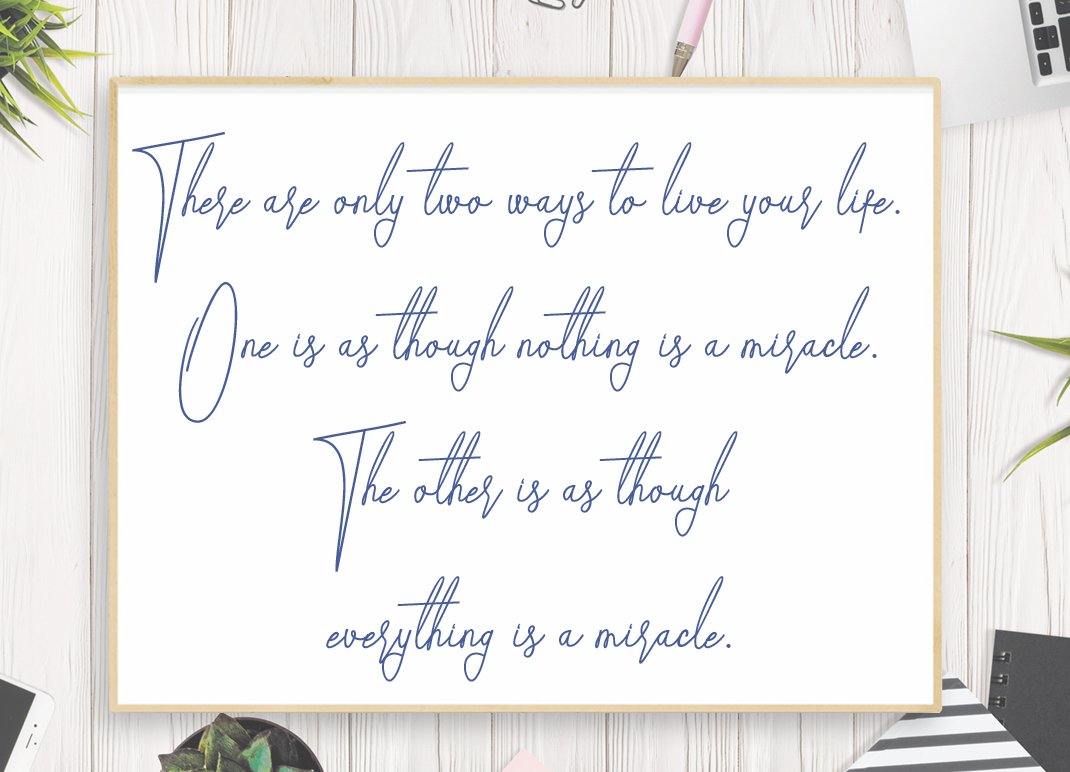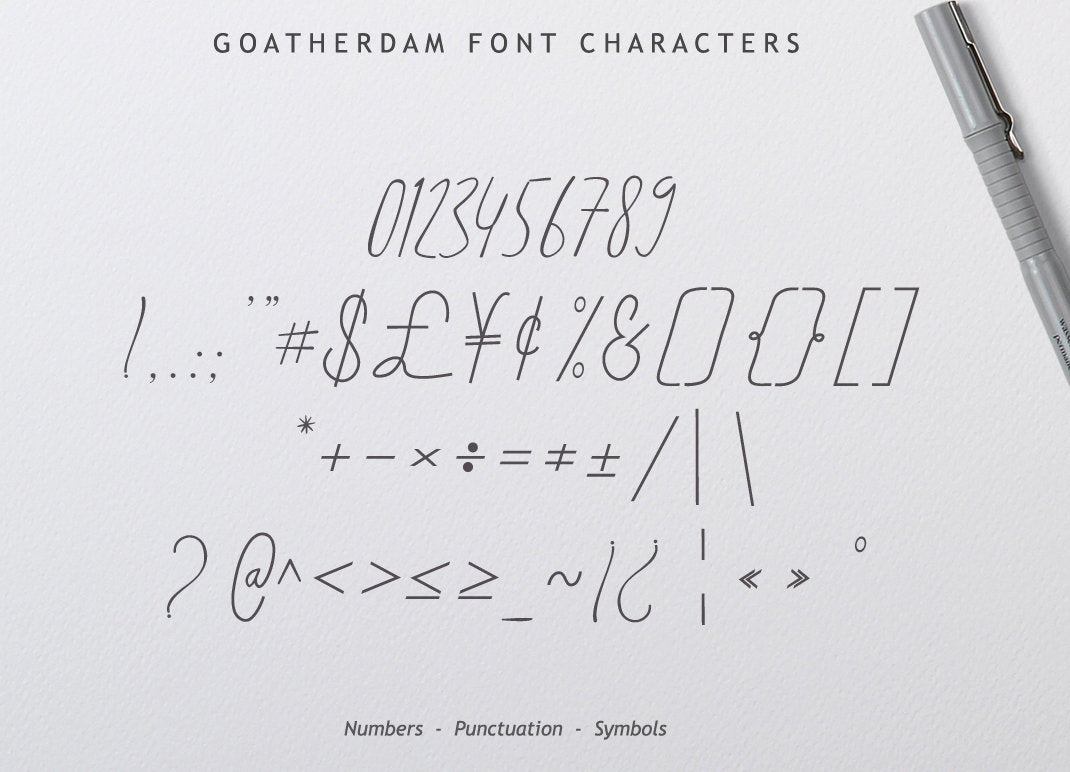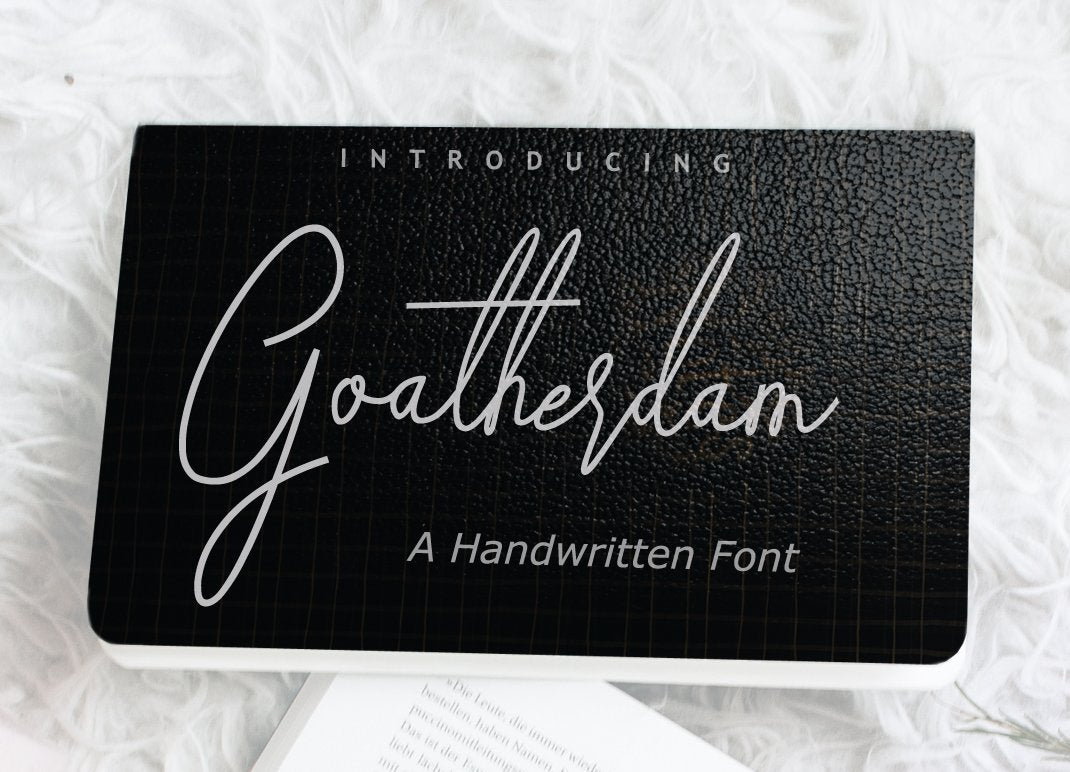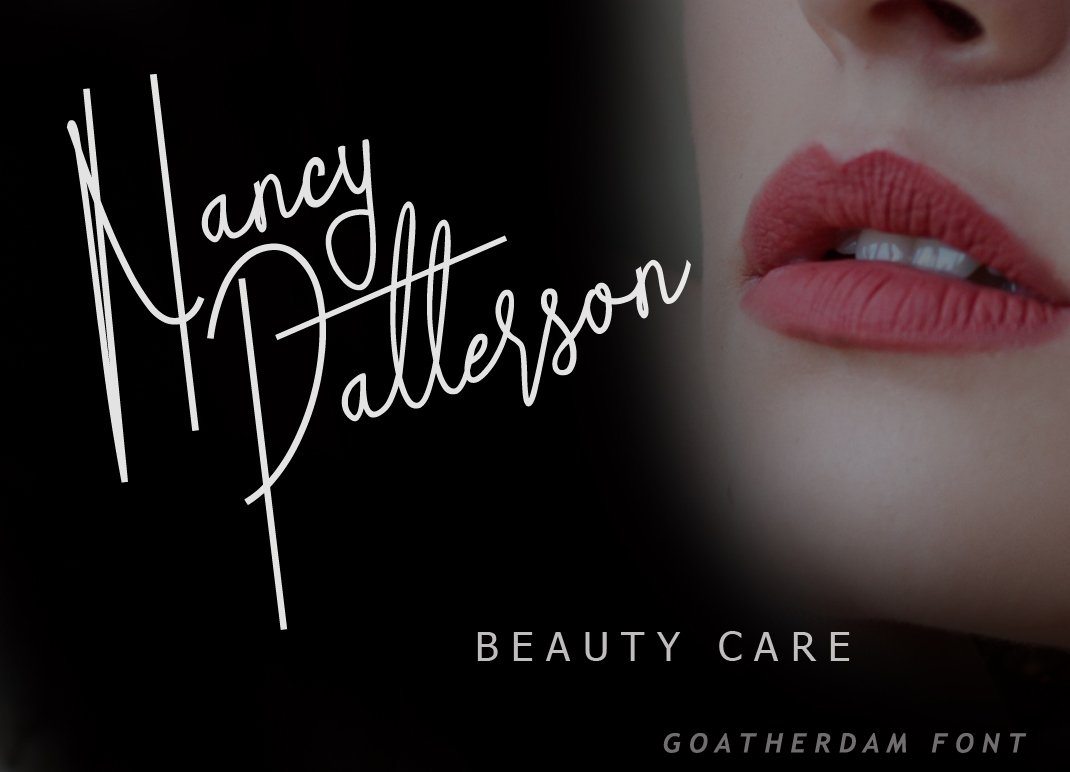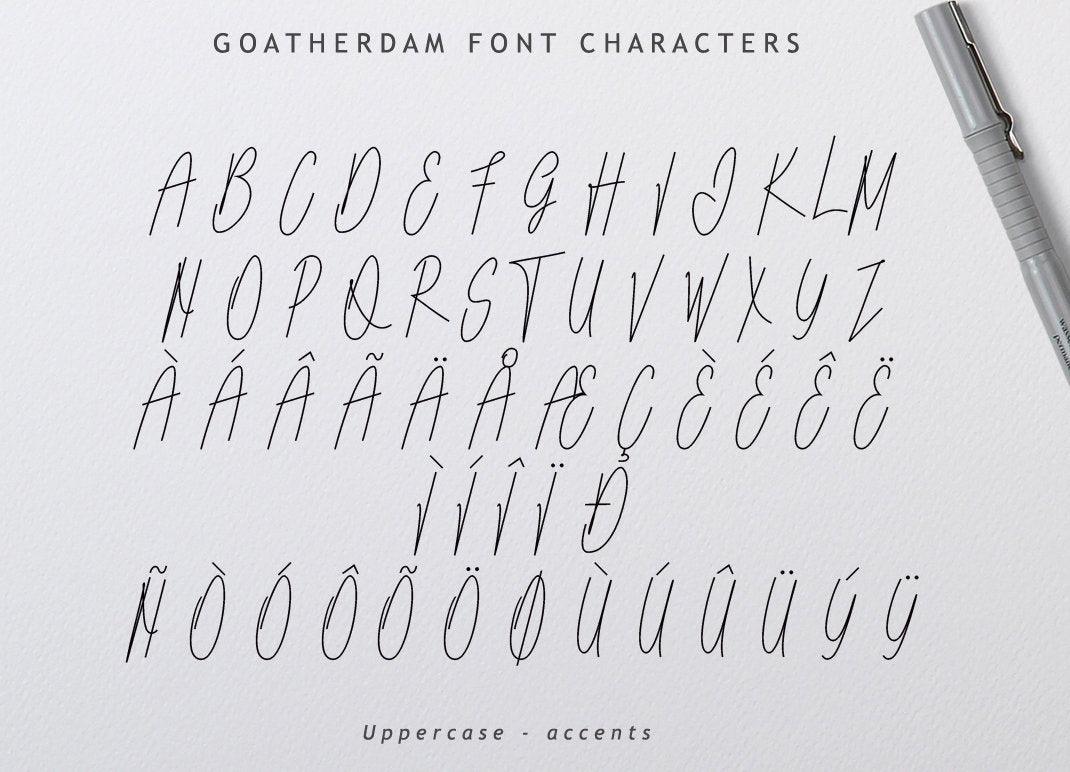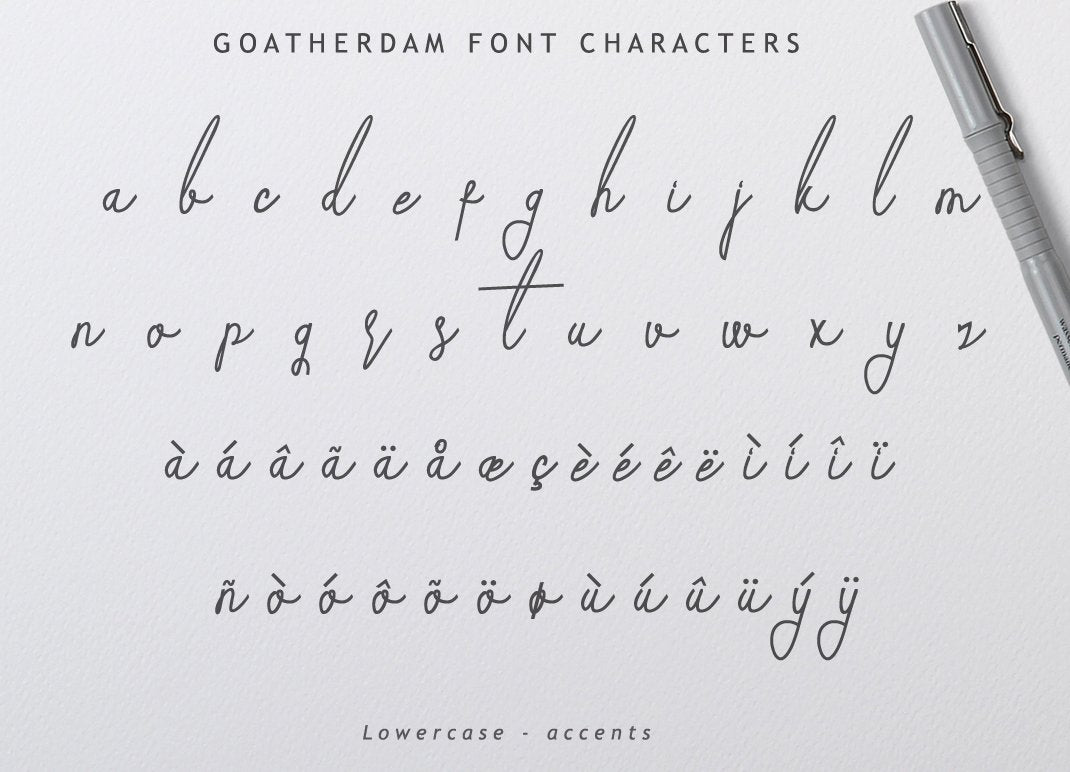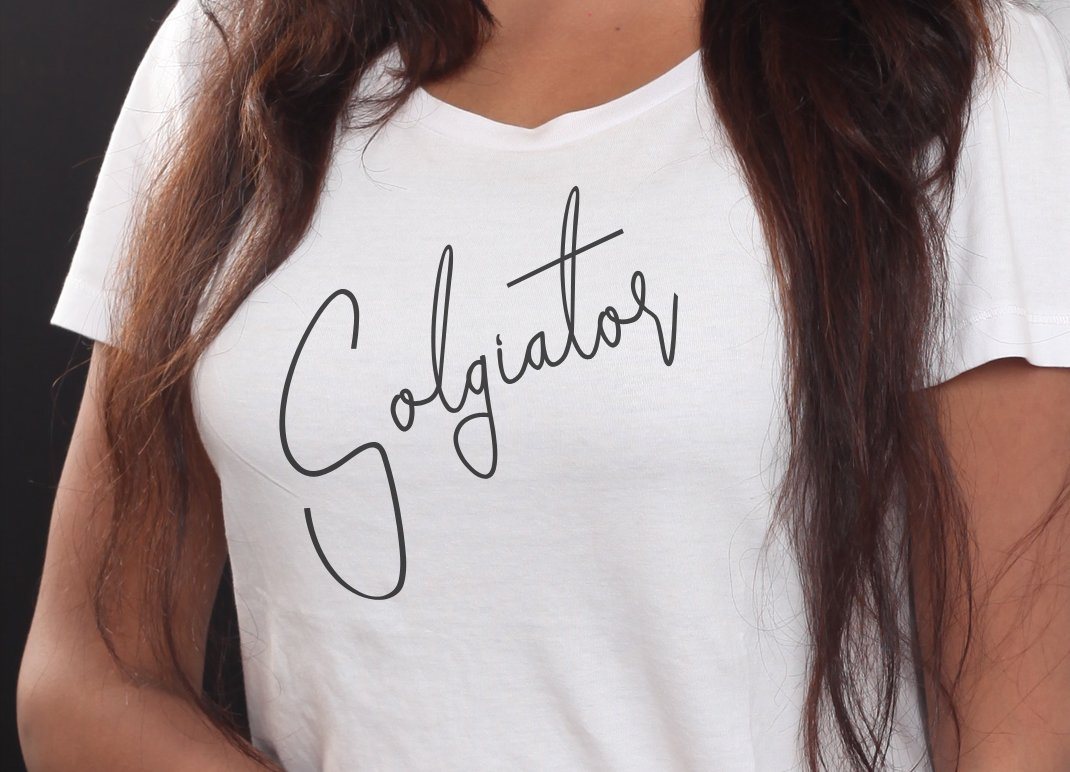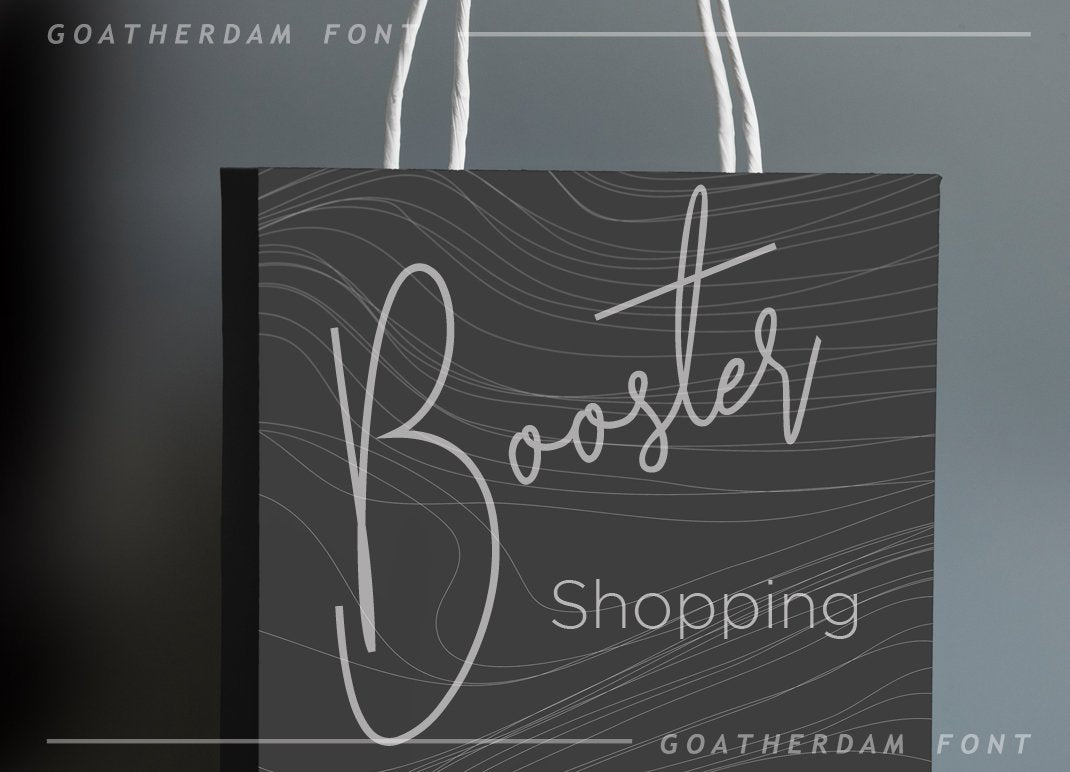
Goatherdam Font
About Goatherdam Font
Goatherdam Font Goatherdam is a handwritten script font with realistic and natural touch. Goatherdam is an excellent choice for signatures, quotes, logotypes, branding, product packaging, wedding invites and many more. Features : Available in single OTF and TTF files Uppercase A-Z Lowercase a-z Numbers 0-9 Accents Punctuation PUA Encoded Multilingual support Support for Windows, Mac and Linux OS Make sure ligature feature in your program is enabled. If you have any questions regarding this product kindly leave your message through the contact form or contact us at  Enjoy the font!! Thank you.. Don’t forget to visit our shop and check our products click here